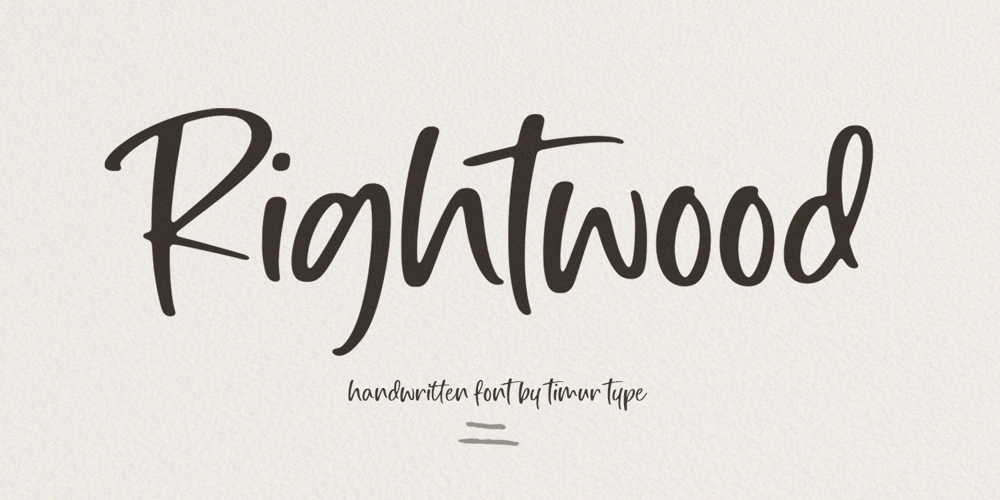
Rightwood Font Family was designed by Wara Sigit Tri Pamungkas and published by Timurtype. Rightwood contains 1 styles and family package options. Introducing by Timur typeProudly Present, Rightwood A Handwritten Script FontRightwood is perfect for product packaging, branding project, megazine, social media, wedding, or just used to express words above the background.Rightwood also multilingual support.Embelish your designs with our original fonts.Enjoy the font,Thank you!